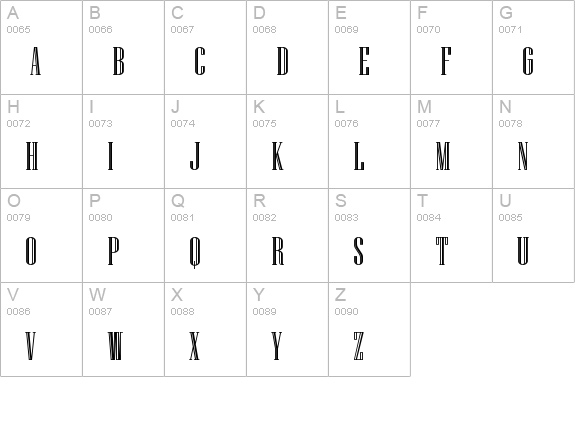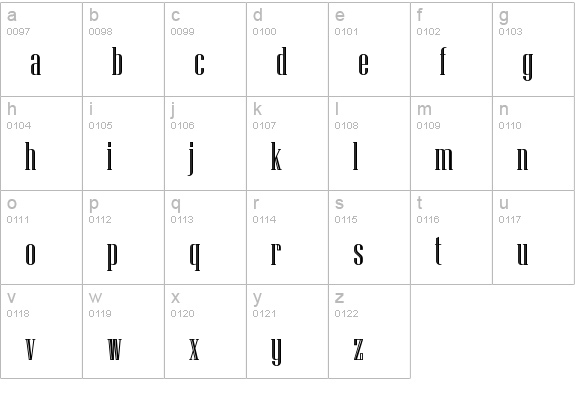
PFMission Engraved Font Details
PFMission Engraved font is a striking display typeface that exudes elegance and sophistication. Its meticulously crafted letterforms make it perfect for adding a touch of class to any design project. The intricate engravings give this font a timeless quality, making it ideal for luxury branding, invitations, and editorial designs. What sets PFMission Engraved font apart is its versatility - it can be used for both headlines and body text, creating a cohesive and polished look throughout your project. The sharp lines and refined details of this font make it a standout choice for those looking to make a statement. Best of all, PFMission Engraved font is available for free download at FontsMarket.com. So whether you're a designer looking to elevate your work or a hobbyist searching for the perfect font for a special project, this font is a must-have in your collection. Download it today and unleash the power of PFMission Engraved font in your designs.